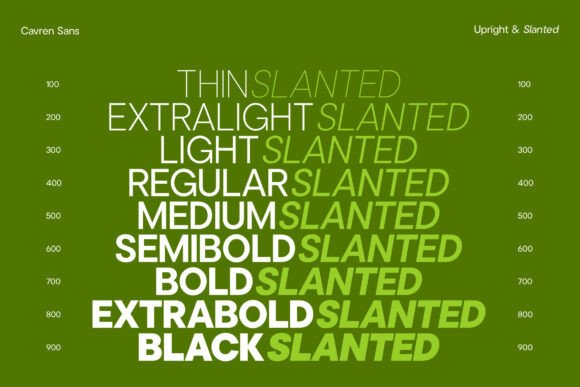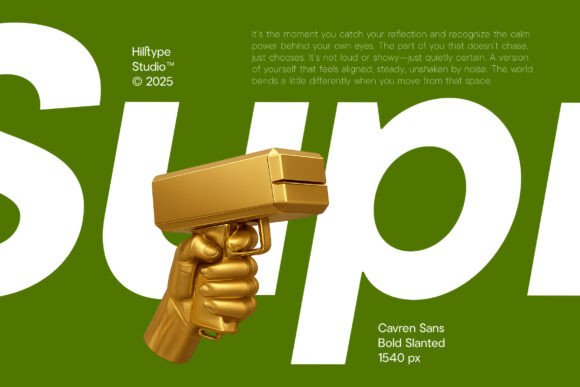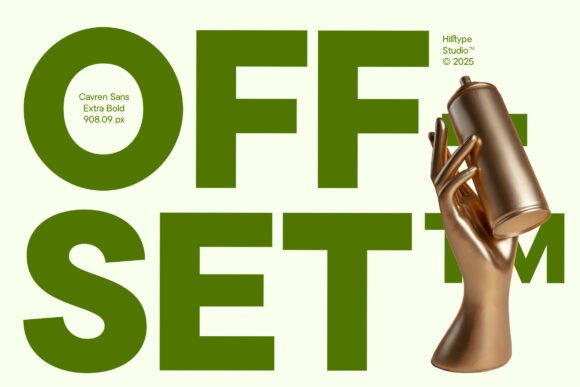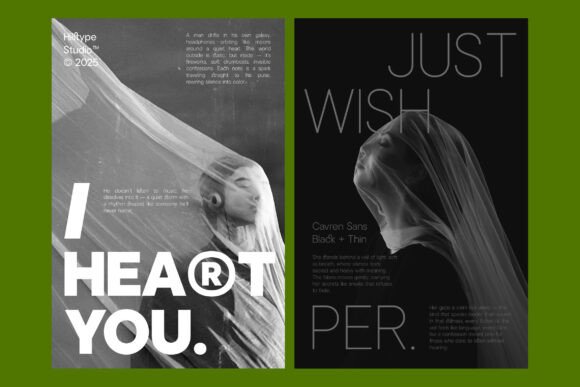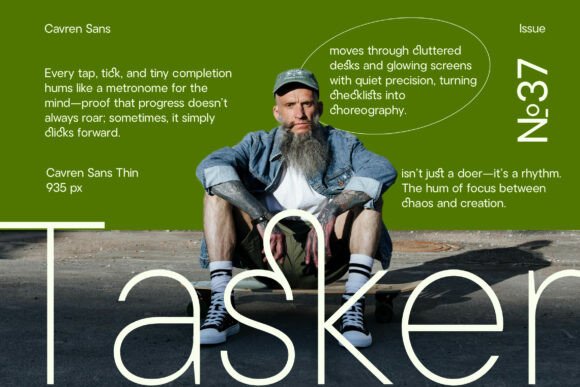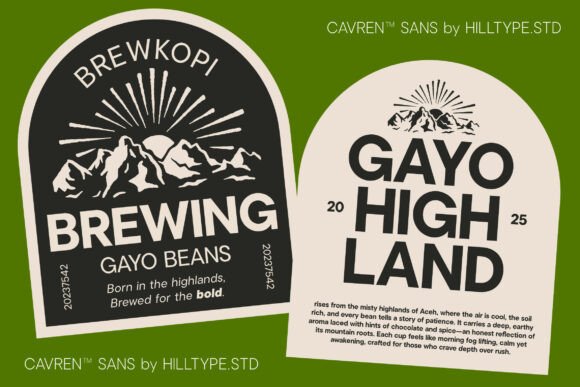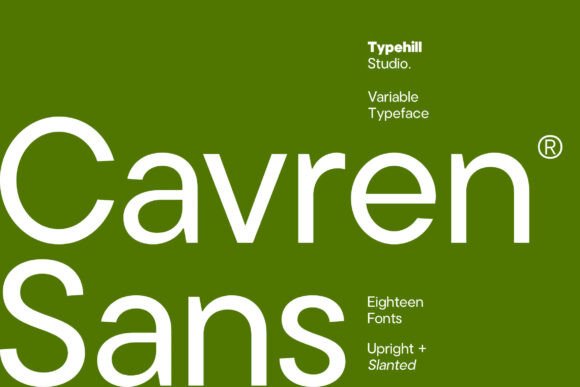
Cavren Sans Font: Elevate Your Designs with a Modern and Versatile Typeface
In the world of typography, a well-designed font can make all the difference in creating a lasting impression. For designers and crafters seeking a contemporary sans serif font that exudes professionalism and sophistication, look no further than Cavren Sans. This versatile typeface is specifically crafted for professional use, offering a perfect blend of geometric and humanist elements that cater to a wide range of design needs.
Geometric yet Humanist Construction
Cavren Sans boasts a unique geometric yet humanist construction that sets it apart from other sans serif fonts. Its clean lines, balanced proportions, and smooth letterforms create a visually appealing aesthetic that is both modern and timeless. This font family is designed to provide excellent legibility, making it an ideal choice for various applications, including logos, headlines, websites, and print materials.
18 Styles with Matching Obliques
One of the standout features of Cavren Sans is its extensive range of styles, comprising 18 weights with matching obliques. This allows designers to experiment with different font combinations, creating a cohesive visual identity for their projects. Whether you need a bold and attention-grabbing font or a light and subtle one, Cavren Sans has got you covered.
OpenType Features and Multilingual Support
Cavren Sans also supports OpenType features, which enable designers to take their typography to the next level. With access to advanced typographic features, such as ligatures, stylistic alternates, and swashes, you can add an extra layer of creativity to your designs. Furthermore, Cavren Sans offers multilingual support, making it an excellent choice for global brands and projects that require a font that can adapt to different languages and cultures.
Cavren Sans is specifically designed for designers and crafters who require a clean, balanced, and modern font for their projects. Its versatility makes it an excellent choice for various applications, including:
- Branding: Create a lasting impression with a custom logo or wordmark that exudes professionalism and sophistication.
- Corporate Identity: Establish a consistent visual tone across your company’s marketing materials, website, and office spaces.
- Packaging: Elevate your product packaging with a modern and eye-catching font that stands out on store shelves.
- Digital Design: Use Cavren Sans for your website, mobile app, or social media graphics to create a cohesive and engaging visual experience.
Why Choose Cavren Sans?
With so many fonts available, why choose Cavren Sans? Here are just a few reasons why this typeface stands out:
- Timeless Aesthetic: Cavren Sans boasts a modern yet timeless design that won’t go out of style anytime soon.
- Legibility: Its geometric construction and humanist elements ensure excellent legibility across various applications.
- Versatility: With 18 styles and matching obliques, you can experiment with different font combinations to find the perfect fit for your project.
- Professional Support: Cavren Sans is designed for professional use, ensuring that it meets the demands of designers and crafters who require a high-quality font.
In conclusion, Cavren Sans is an exceptional sans serif font family that offers a perfect blend of modernity, versatility, and professionalism. Its geometric yet humanist construction, extensive range of styles, and OpenType features make it an ideal choice for designers and crafters seeking a clean, balanced, and confident visual tone. Whether you’re working on a branding project, corporate identity, packaging, or digital design, Cavren Sans is sure to elevate your designs and leave a lasting impression.